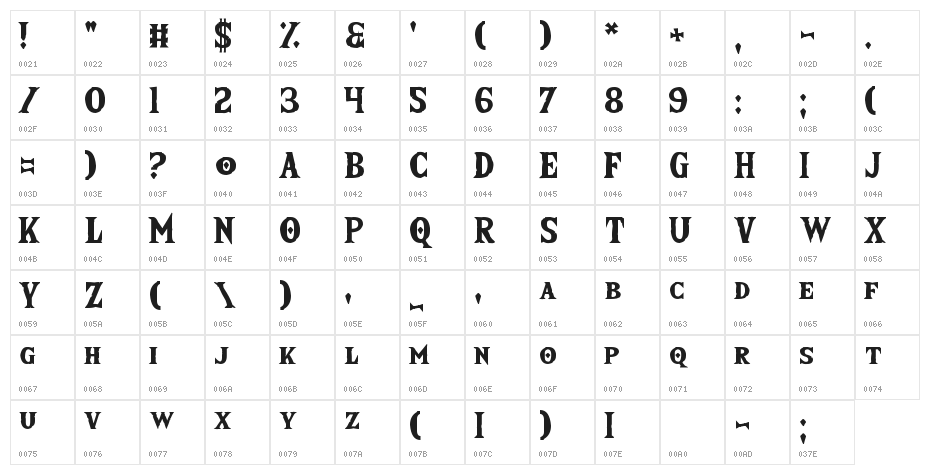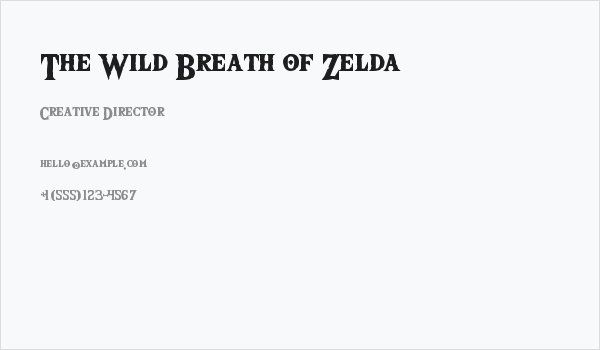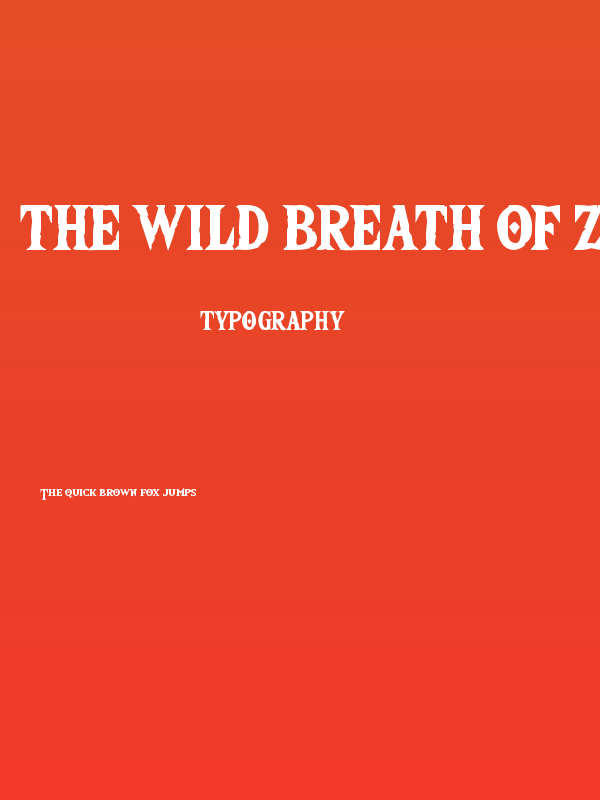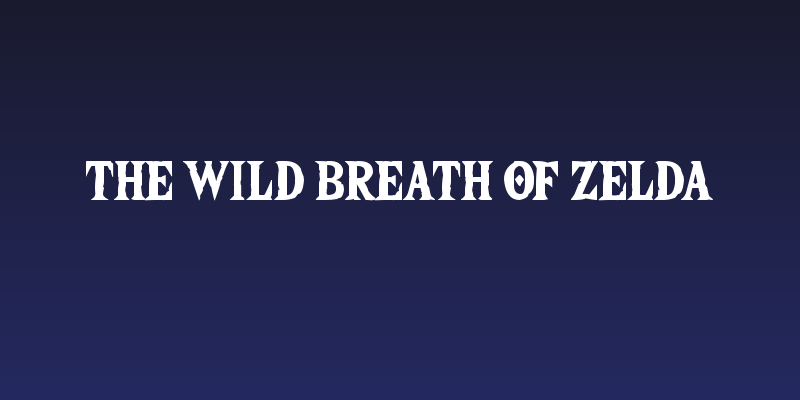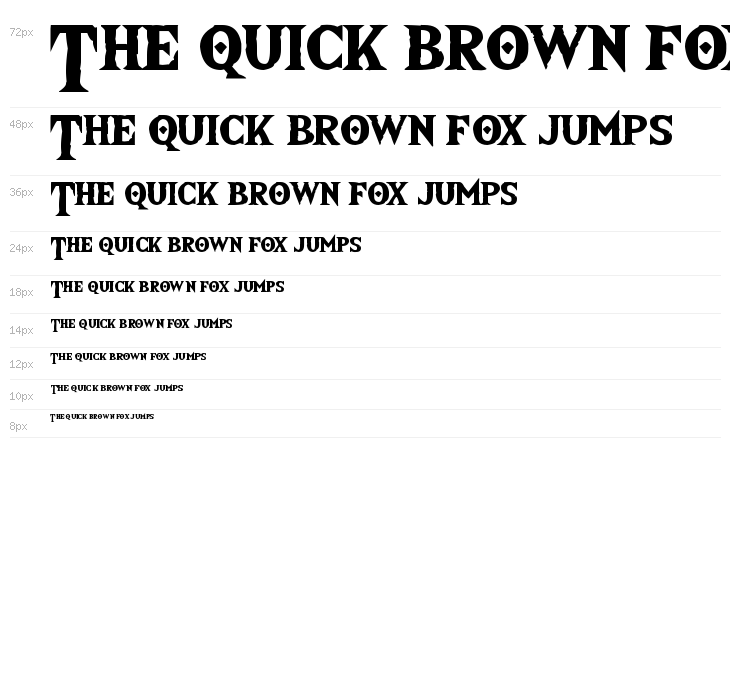
The Wild Breath of Zelda Font
The Wild Breath of Zelda Description
This font features a bold and adventurous style, reminiscent of fantasy and medieval themes. The characters are designed with sharp, angular edges and a slightly distressed appearance, giving them a rugged and ancient feel. The uppercase letters are particularly striking, with unique cutouts and embellishments that add to the font's dramatic flair. The numbers and special characters maintain this aesthetic, ensuring a cohesive look across all text. This font is ideal for projects that require a touch of fantasy or historical ambiance.
| Overall Style | Fantasy, Medieval |
| Proposed Projects | Perfect for video game titles, fantasy book covers, themed posters, and adventure-themed branding. |